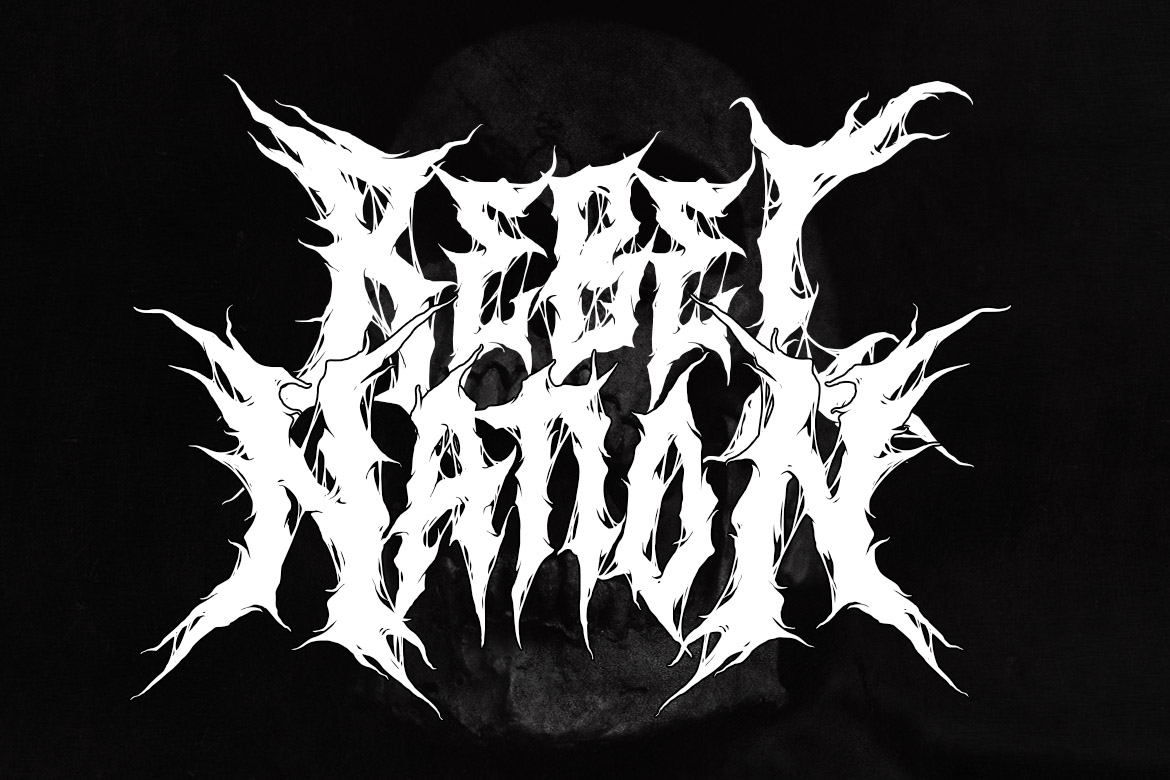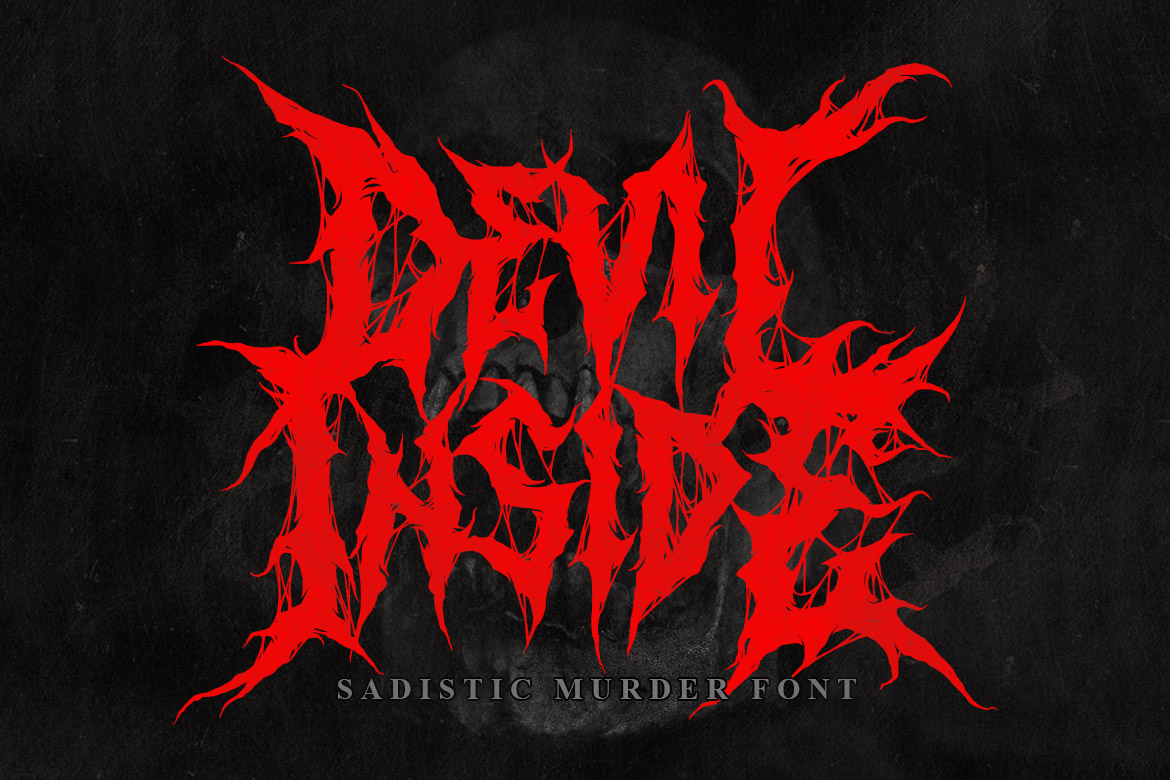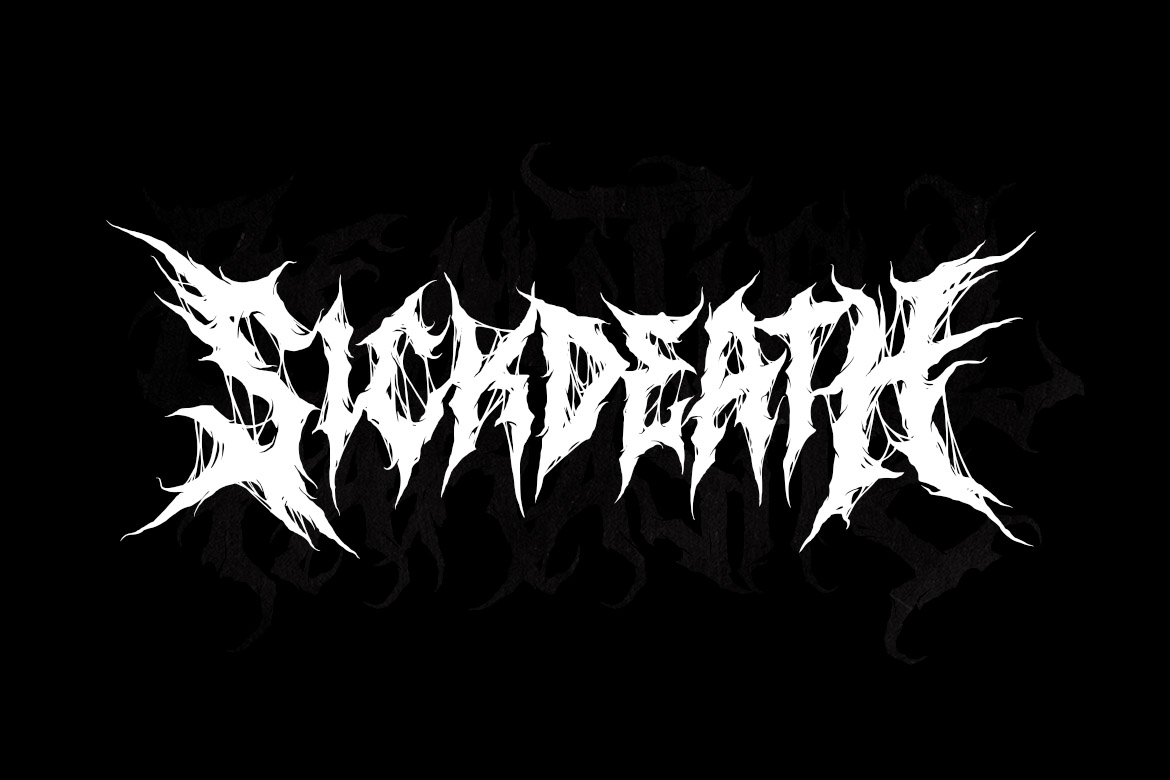
Sadistic Murder – Blackmetal Font
Sadistic Murder is awesome death metal font. Comes with Uppercase and lowercase characters. This font is great for any gore/metal/brutal design purposes. Sadistic Murder is awesome for your logo, your band, for merchandise, for clothing, and movie title/poster